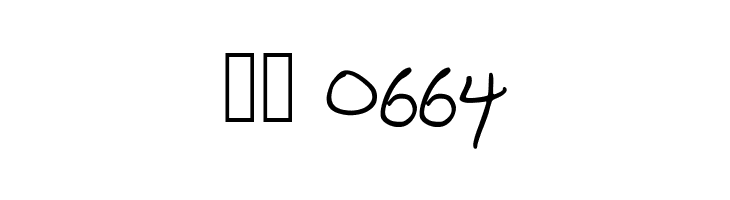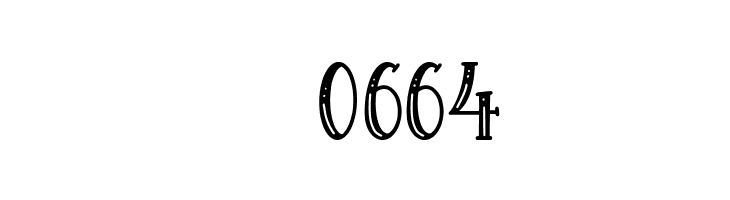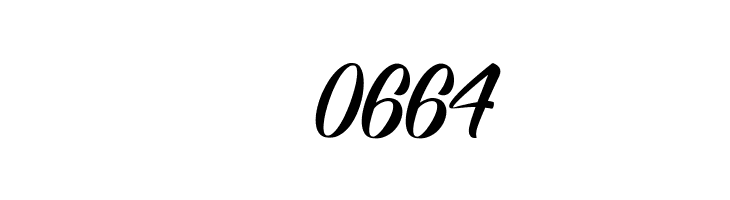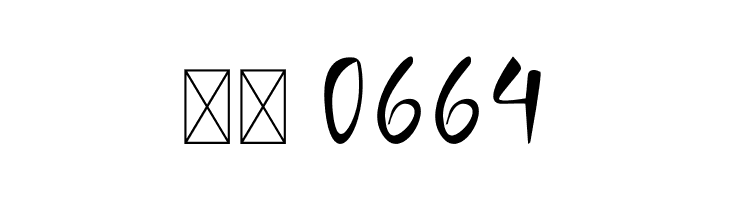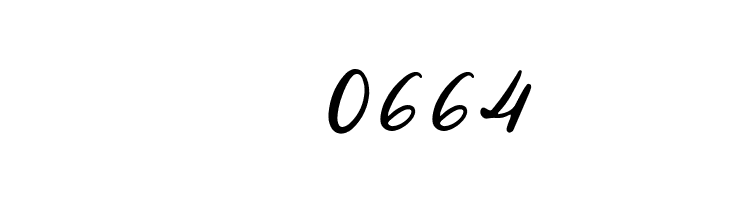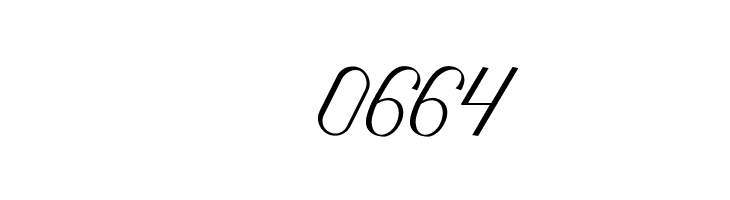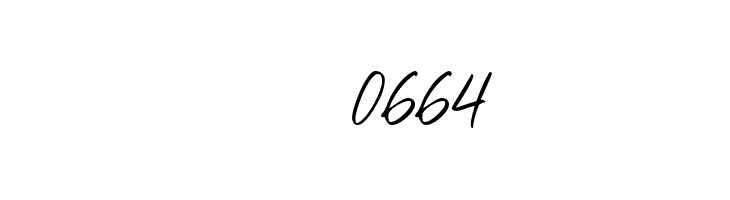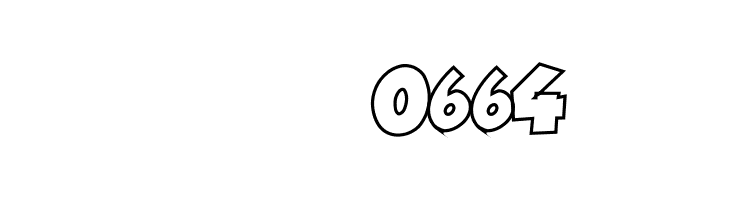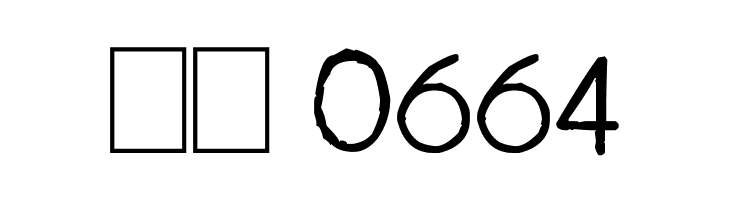
A hand-drawn, artistic font with a bold, textured appearance.
An ornate and regal font with intricate details and decorative flourishes.
A flowing, cursive font with elegant loops and swirls.
A modern cursive font with elegant, flowing letters and smooth curves.
A playful and decorative font with elegant, dotted characters.
A playful, decorative font with bold strokes and dotted embellishments.
An elegant and flowing script font with ornate uppercase and smooth lowercase letters.
A bold, vintage-inspired font with sharp serifs and high contrast, perfect for striking headlines.
A bold, decorative font with gothic influences and sharp serifs.
An elegant, cursive font with fluid, connected strokes and a refined appearance.
An elegant, flowing script font with graceful curves and a sophisticated style.
A graceful, flowing script font with a sophisticated, handwritten style.
A dynamic, cursive handwritten font with a bold and fluid style.
An elegant, handwritten font with flowing, graceful characters.
A classic serif font with moderate contrast and elegant proportions.
A sophisticated script font with flowing, cursive characters and elegant curves.
A graceful script font with fluid, connected strokes and elegant curves.
A bold, expressive handwritten font with dynamic strokes.
A modern, high-contrast decorative font with elegant and artistic elements.
A bold, decorative italic font with intricate serifs and flourishes.
A bold, decorative font with medieval-inspired details and high contrast strokes.
A dynamic, brush-style font with expressive strokes and elegant curves.
An intricate and decorative blackletter-inspired font with modern elements.
A whimsical and decorative font with curly, looping strokes and artistic flourishes.
A playful, handwritten font with irregular, whimsical strokes.
A bold, elegant script font with flowing, cursive letterforms and high contrast.
A playful and elegant handwritten font with fluid strokes.
A playful, handwritten font with irregular strokes and a casual style.